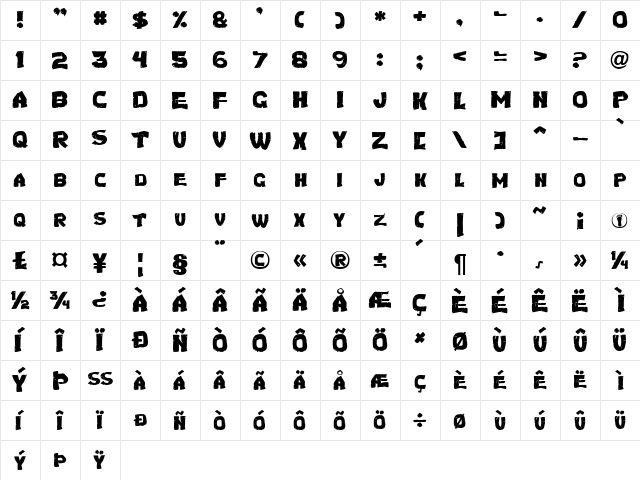
Turtles Regular Font Preview
Turtles Regular
| Copyright | (c) 2000 Neale Davidson. Based on the title logo of the 1980's toyline 'Teenage Mutant Ninja Turtles'. A bit of a fantasy look, with jags and crags in each of the otherwise smooth lettering. Full character set added by Dieter Steffmann |
Design Context for Turtles Typeface
Turtles is a composed and adaptable typeface that performs quietly and consistently across a wide range of design contexts.